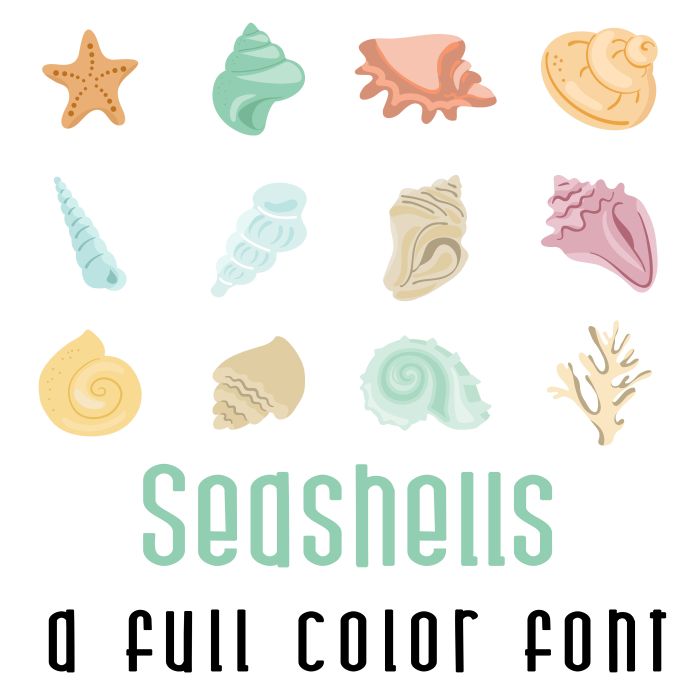
Seashells Full Color Font
A full-color font stores svg data inside an Open Type font file. This font will look black if not used in a program like Silhouette Studio which is compatible. Images can be pulled apart with some vector programs like Illustrator and cut with your cutting machine. This fun full color font features 26 beautiful seashells. Perfect for cards, crafts, gifts, decor, scrapbook pages, planner stickers, and more!